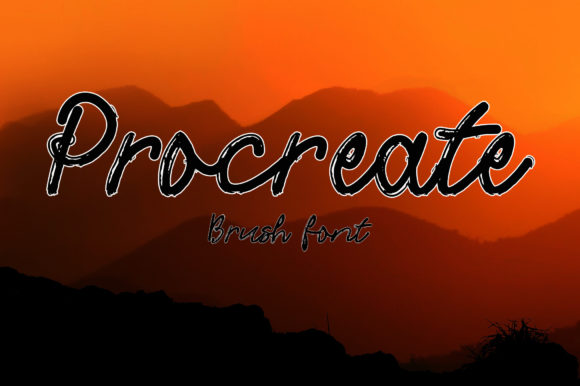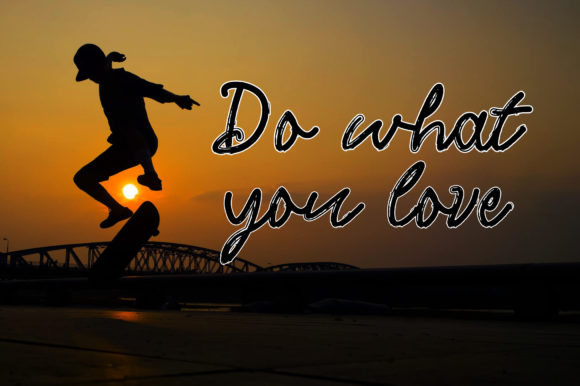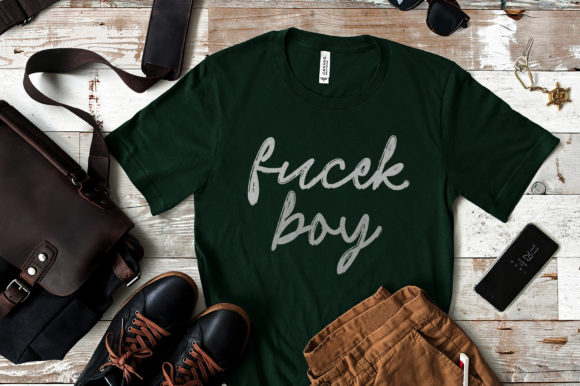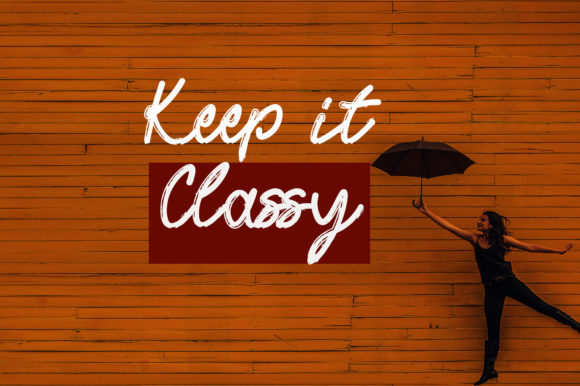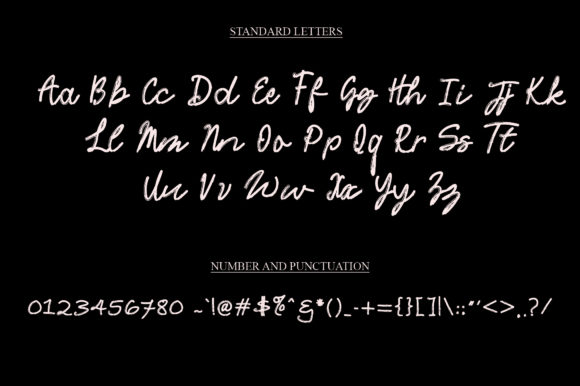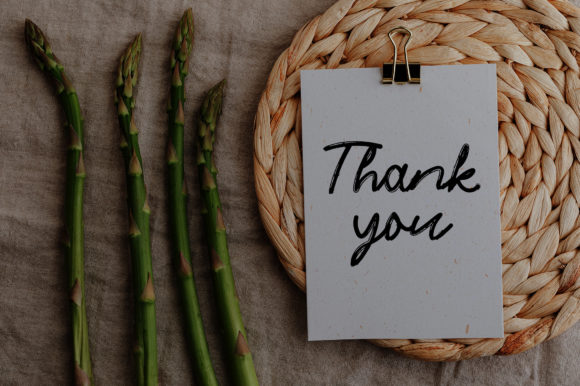
Procreate Font
About Procreate Font
Procreate is a cute, flowing and brushed handwritten font. It has beautiful and well balanced characters and as a result, it matches a wide pool of designs. Add it to your most creative ideas and notice how it makes them come alive!